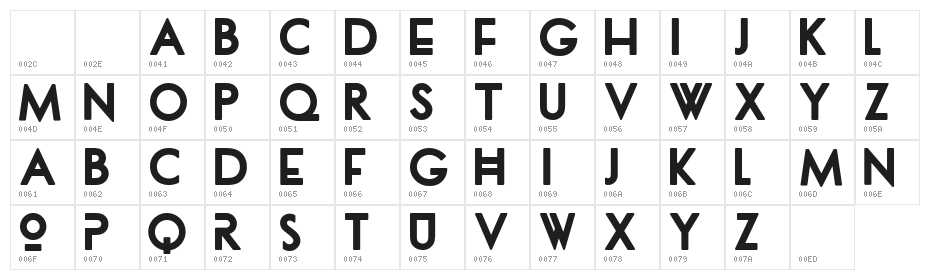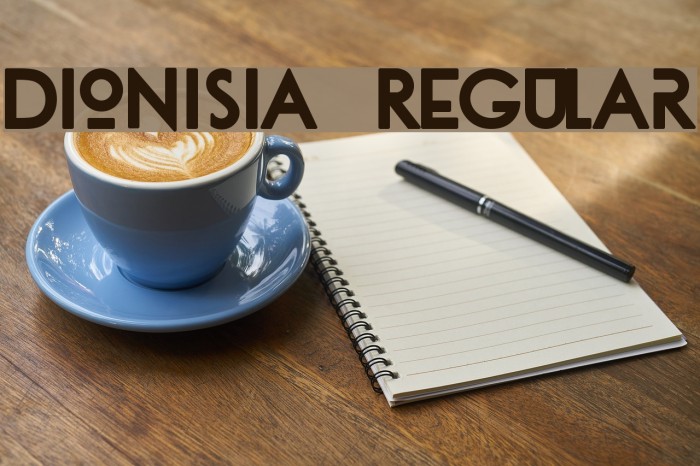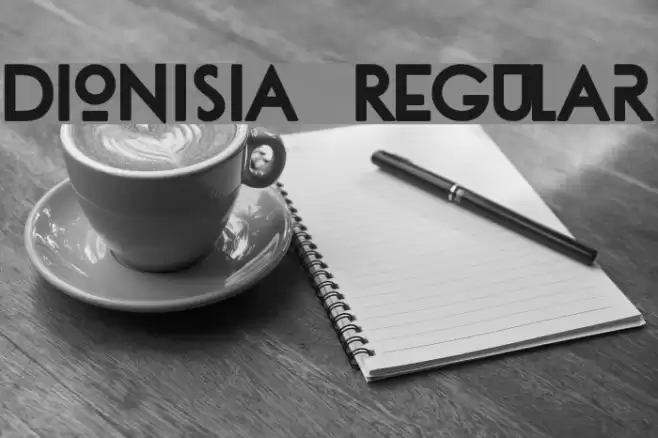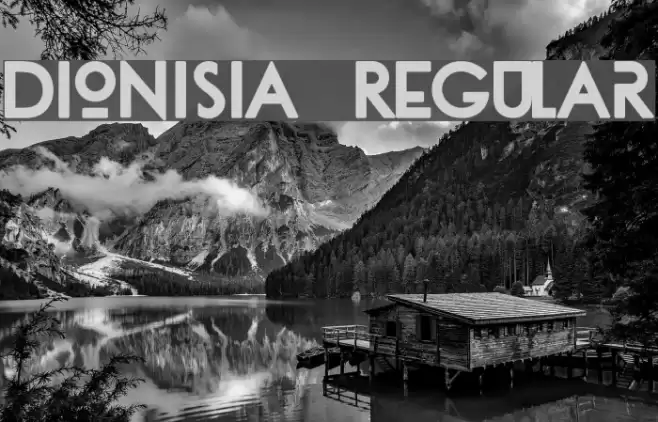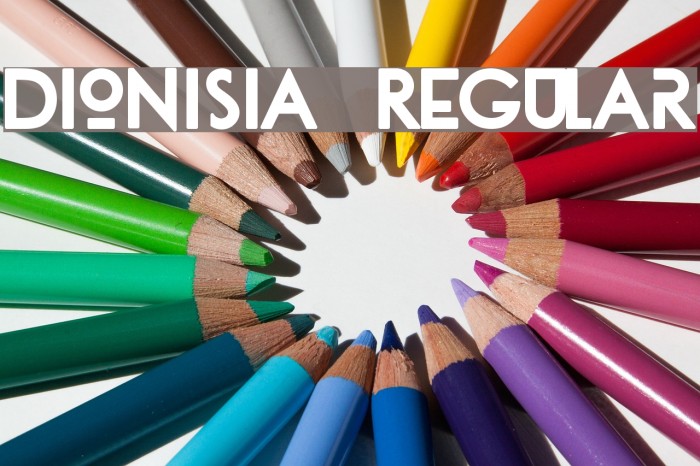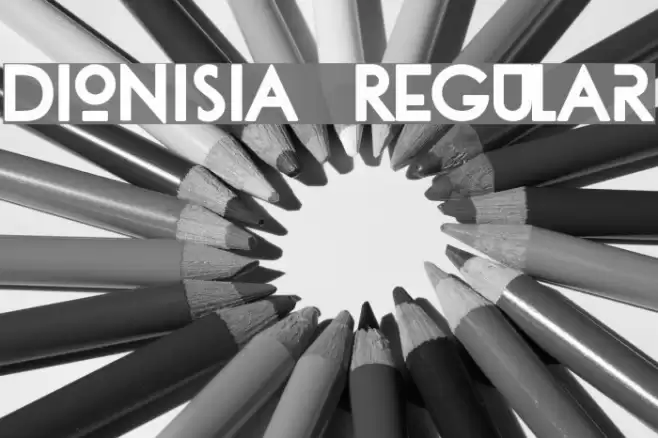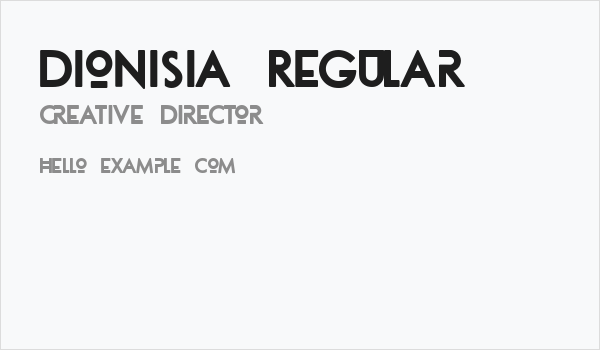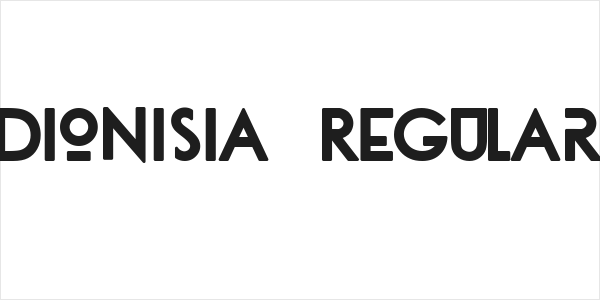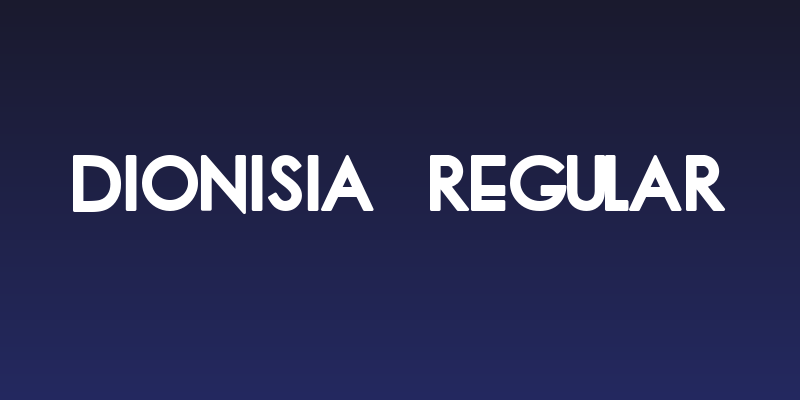
dionisia Regular Font
dionisia Regular Description
This font exhibits a bold and geometric style, characterized by its strong, clean lines and uniform stroke width. The letters are crafted with a modern aesthetic, featuring a consistent height and width that gives a sense of balance and stability. The uppercase letters are particularly striking, with a bold presence that commands attention. The font's design is minimalistic yet impactful, making it suitable for a variety of applications where clarity and modernity are desired. Its geometric nature lends itself well to contemporary design projects, offering a sleek and professional appearance.
| Proposed Projects | Ideal for branding, advertising, headlines, and digital media projects. |